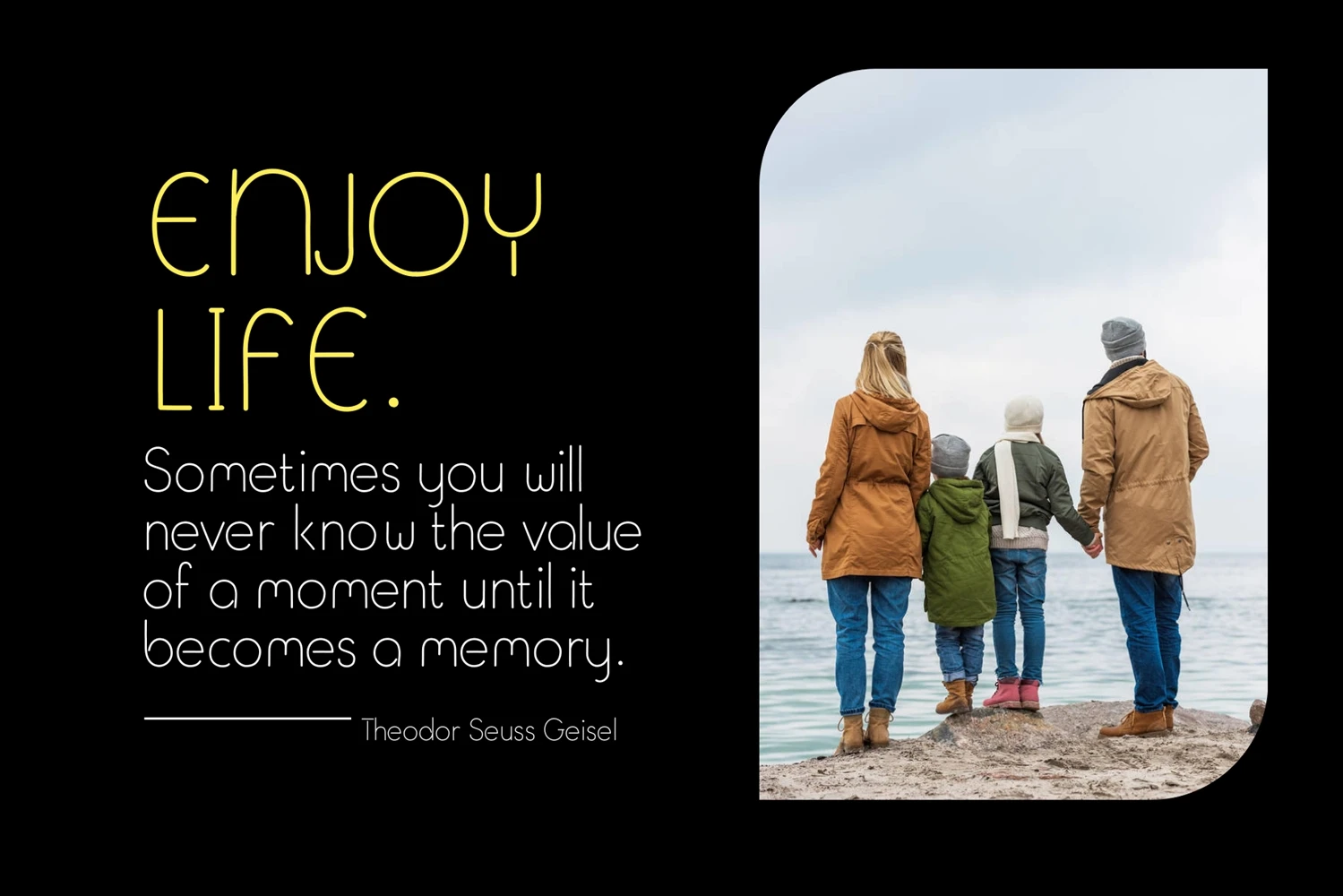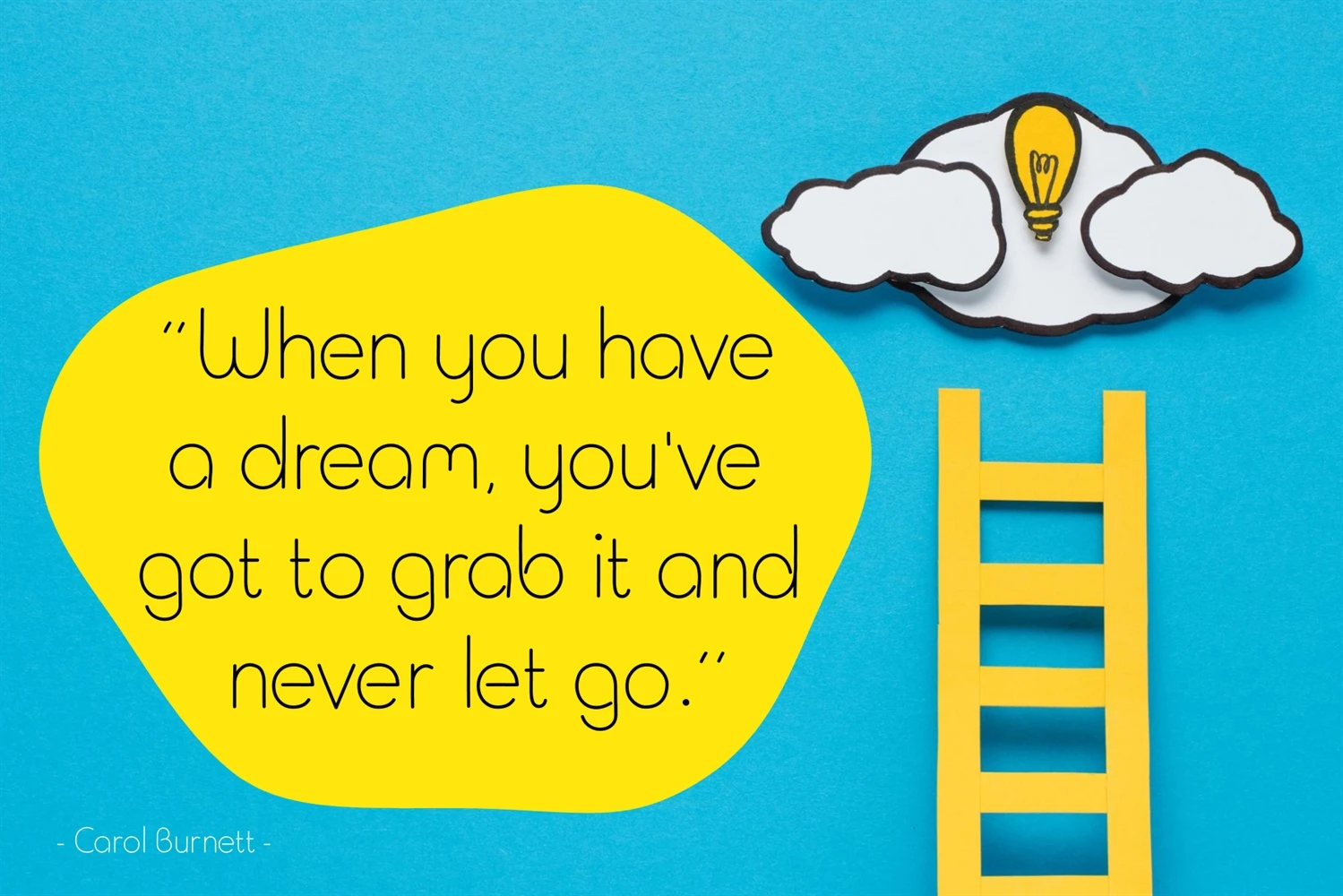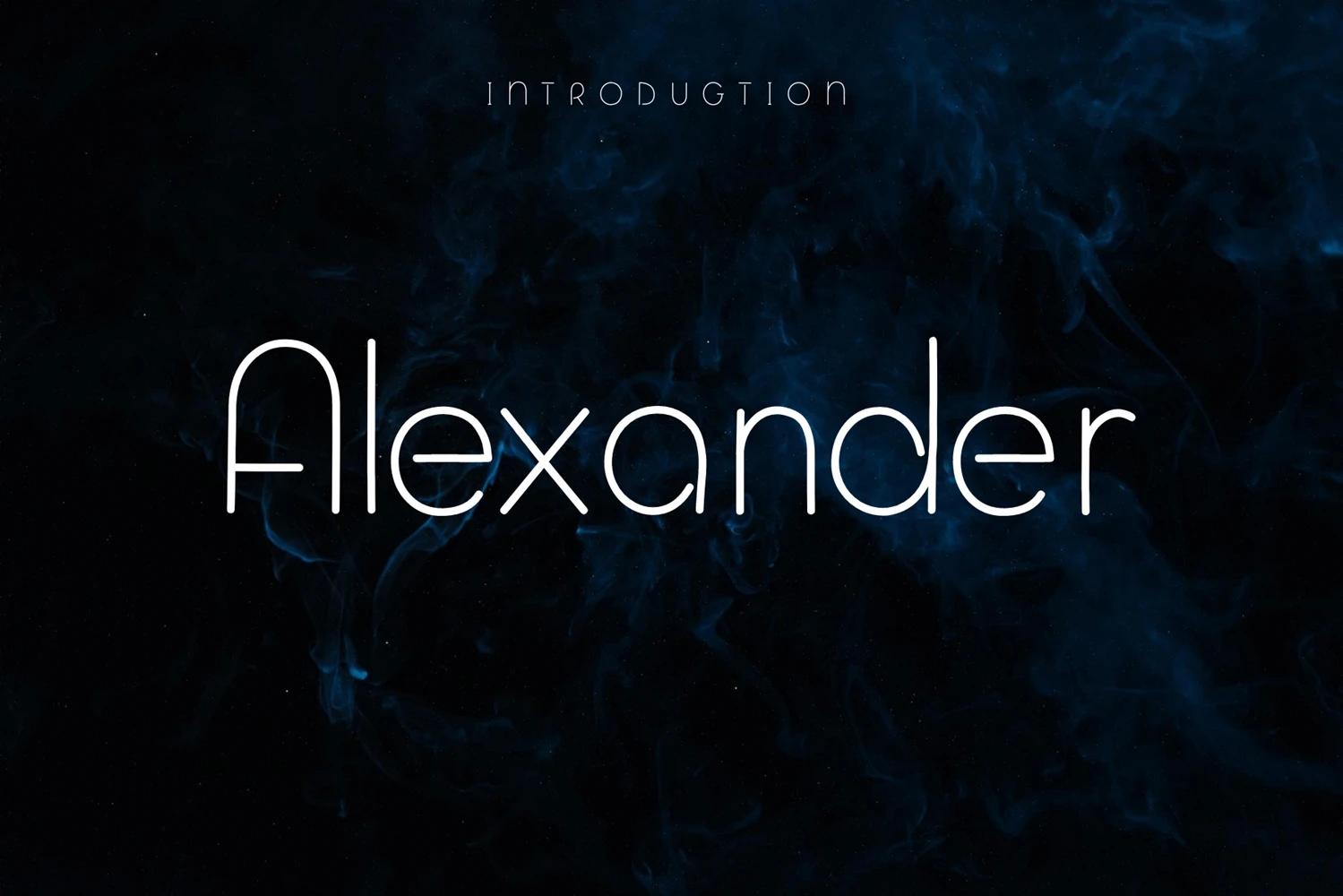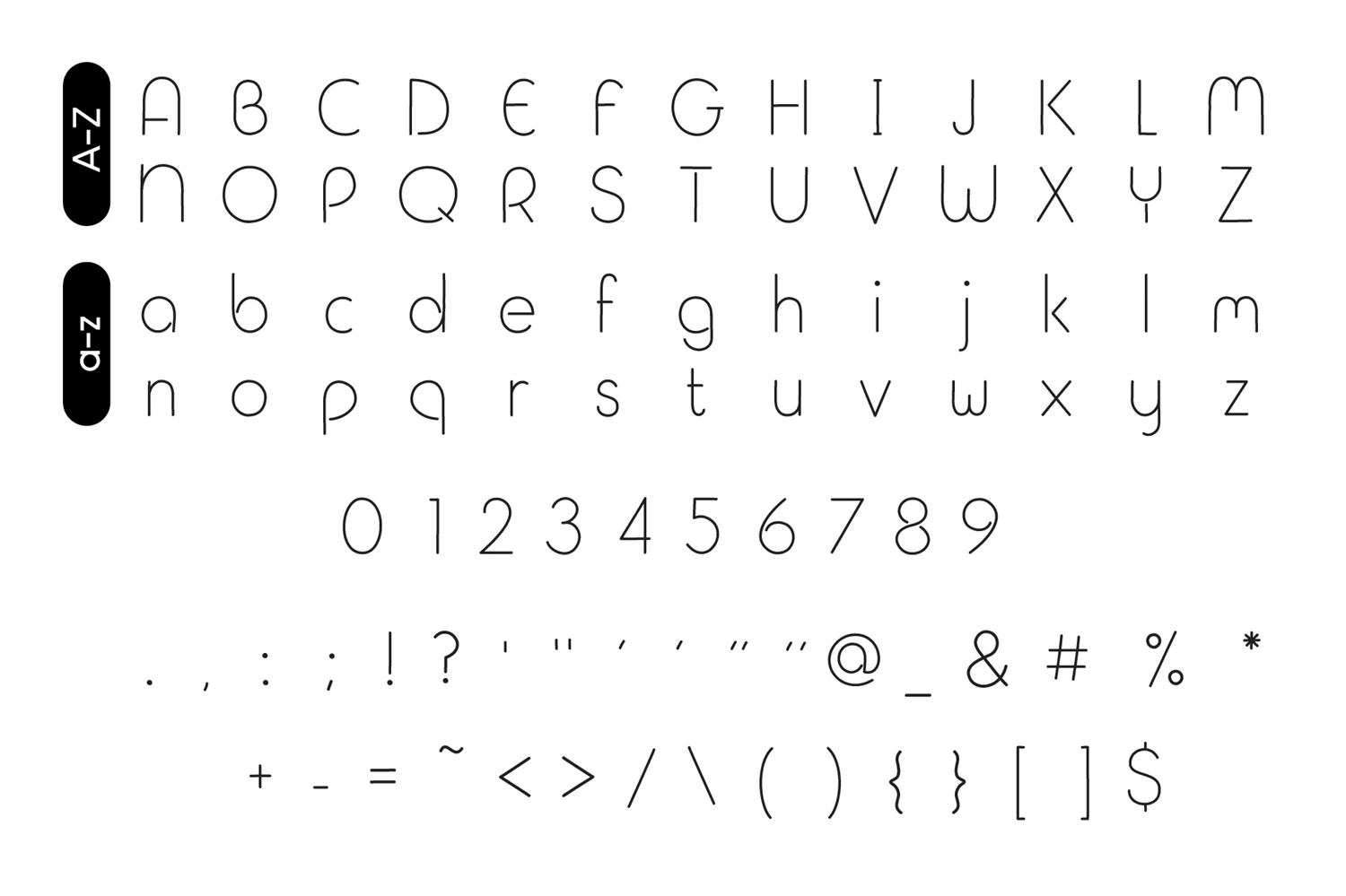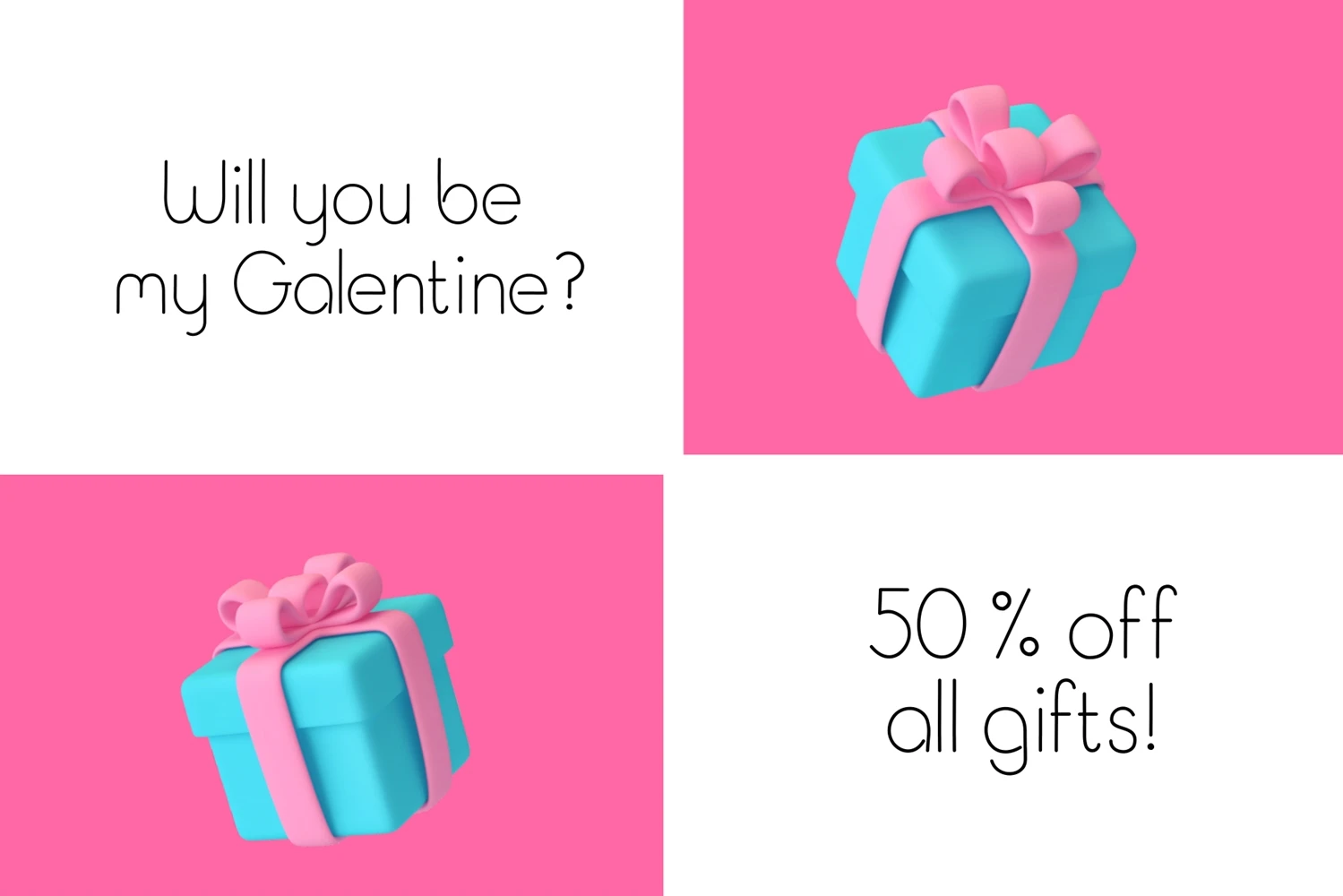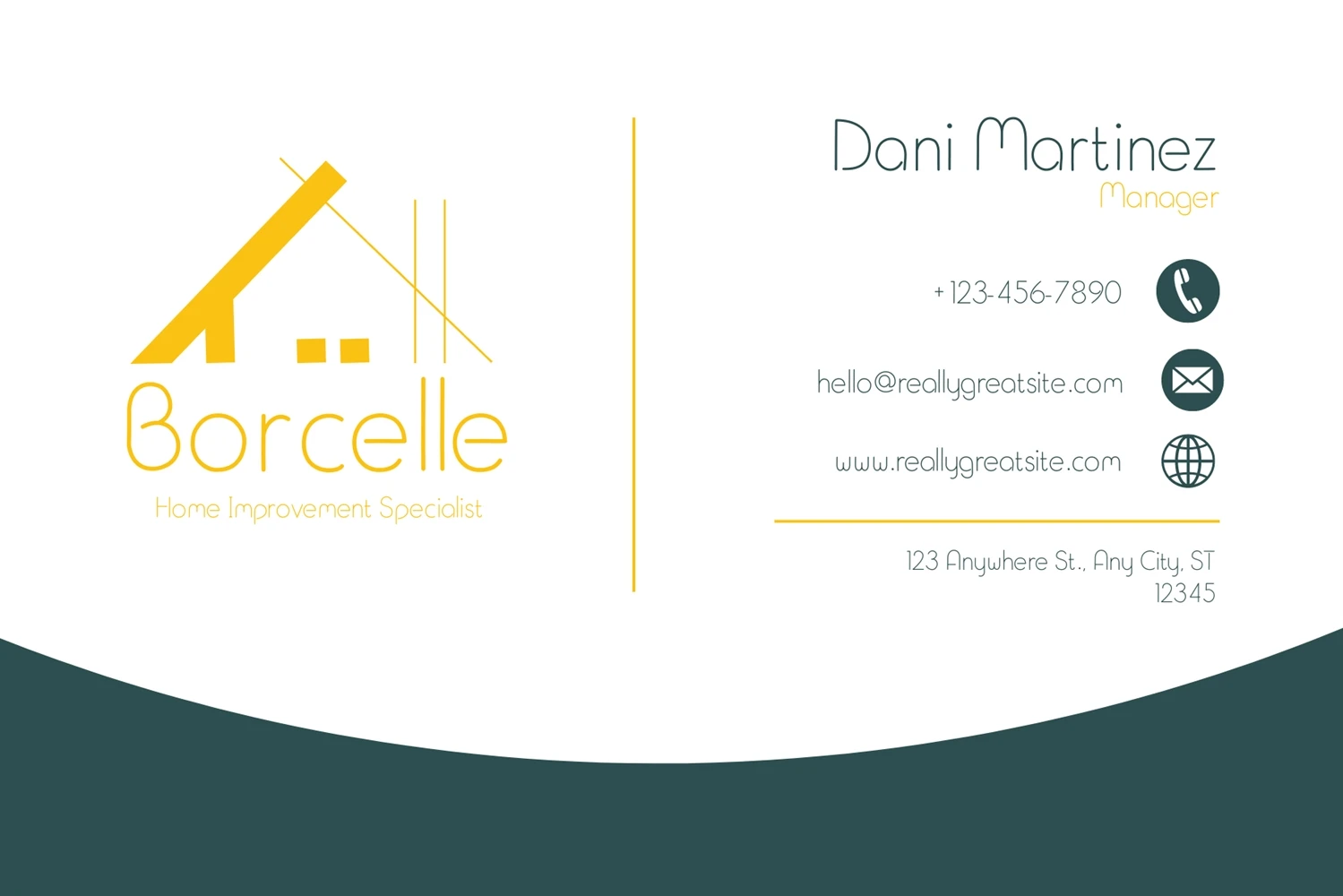
Alexander is an easy-to-read, and thin display font. You can use it for various projects, such as blog posts, name cards, logos, branding, ads, invitations, greeting cards, and much more.